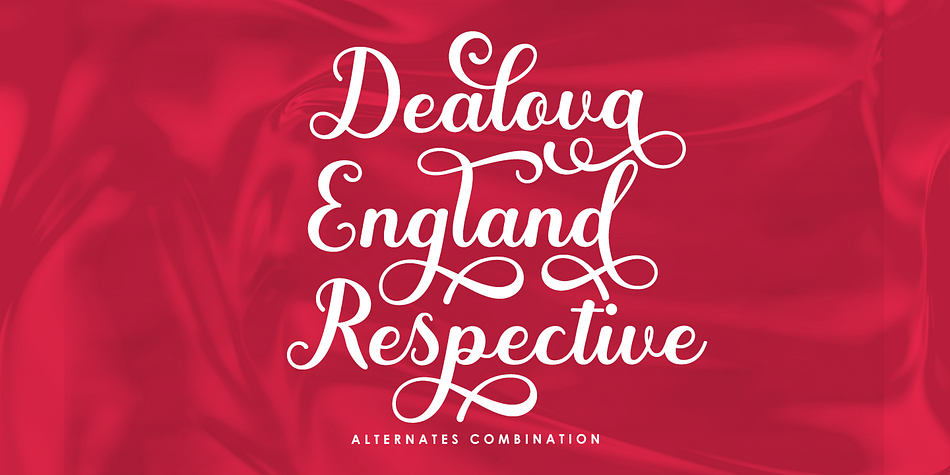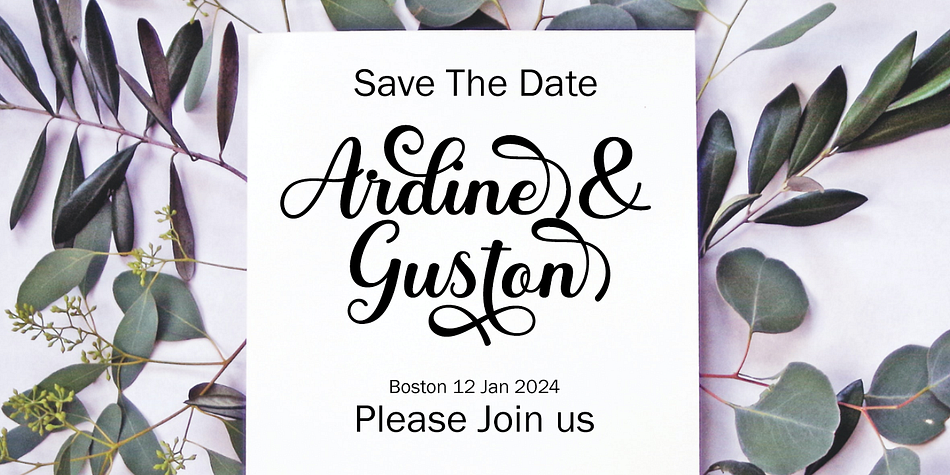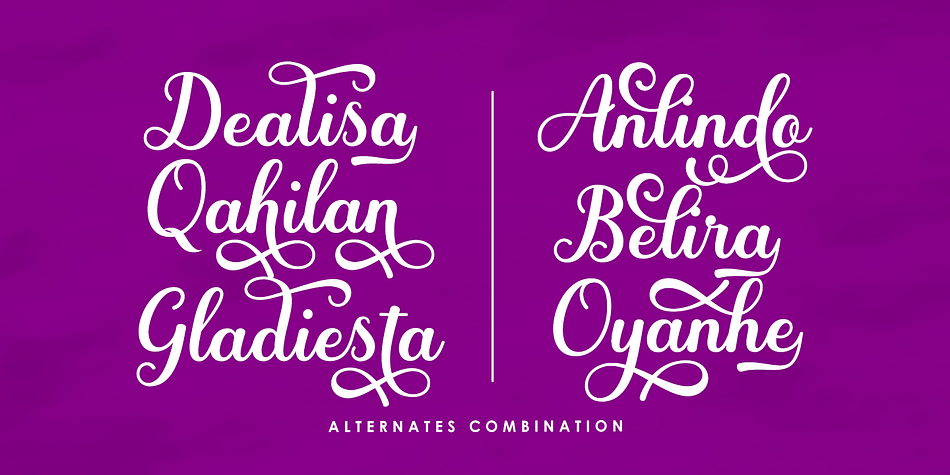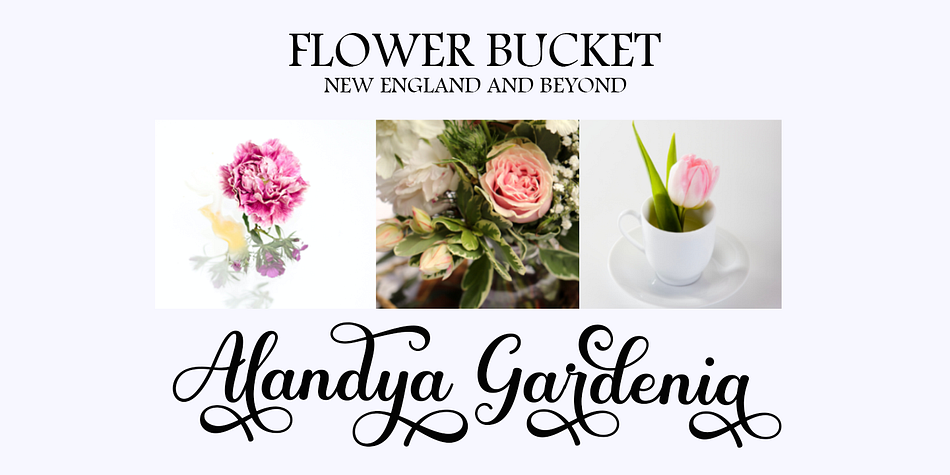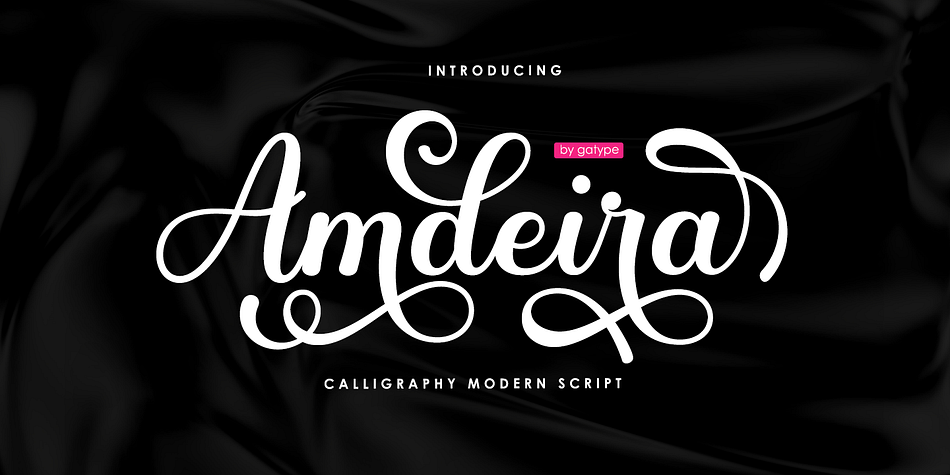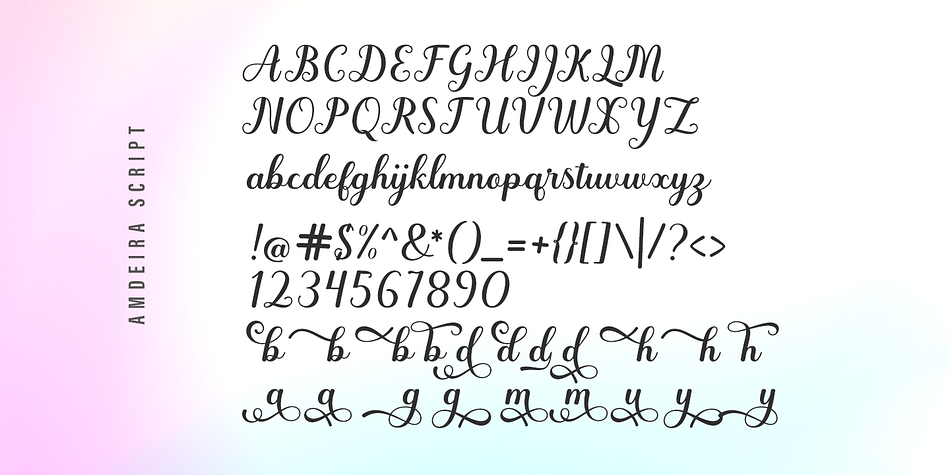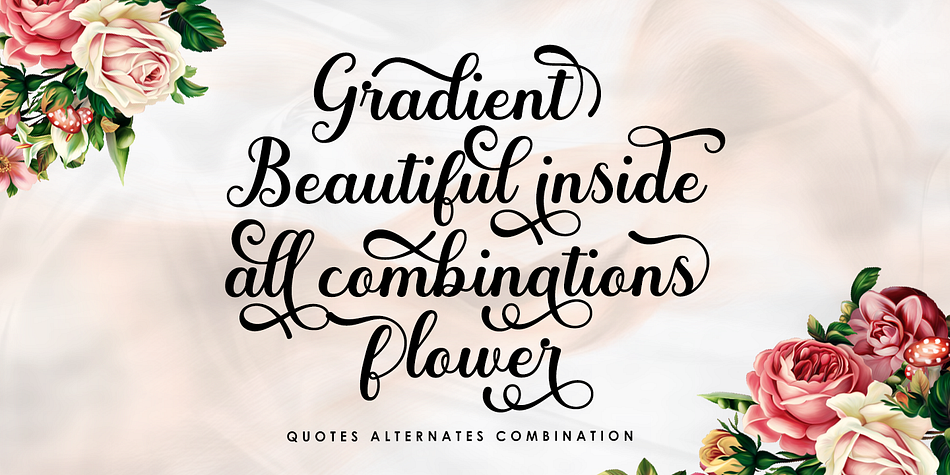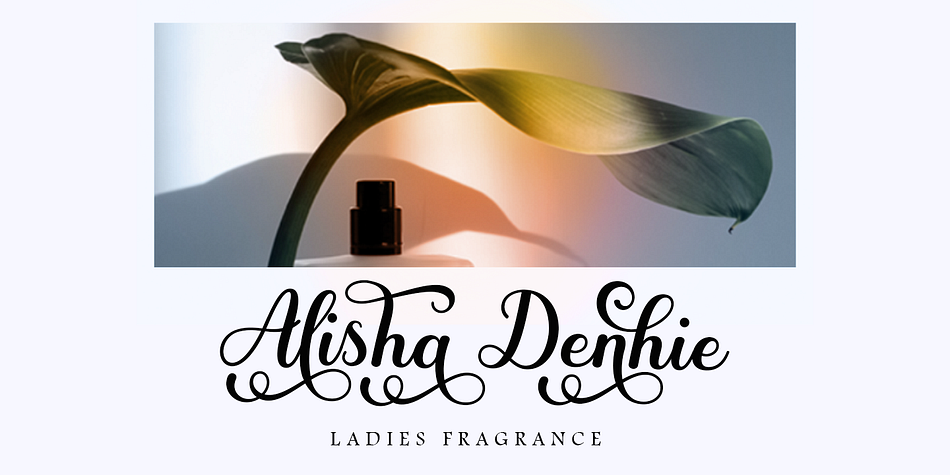
Amdeira
Amdeira is a modern calligraphy font family published by Gatype.
Amdeira Script is a bold style script font. elegant, simple and slightly vintage look. This font is equipped with open types such as: ligature, Stylistic Sets, Last alternative. In addition, this font also supports multiple languages.
You can mix and match your best combination. And besides that, this font is suitable for your design needs such as: poster design, magazines, logos, branding, packaging and many more